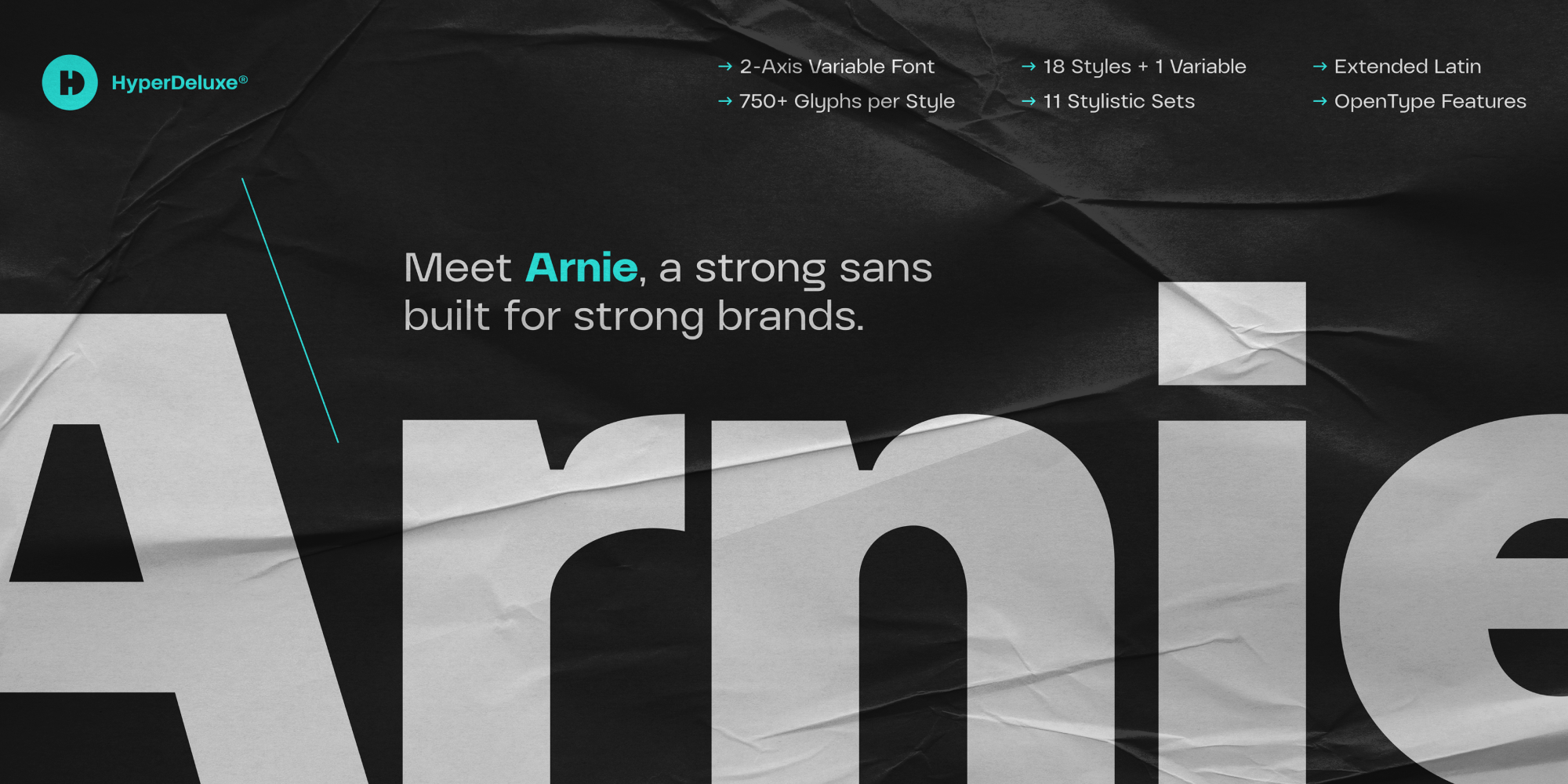
HD Arnie Font is perfect for action movie posters, fitness equipment branding, bodybuilding gym signage, sports supplement packaging, adventure sports marketing, motorcycle dealership materials, military-themed designs, powerful automotive advertising, masculine lifestyle brands, and high-energy entertainment promotions.
What makes HD Arnie Font exciting is its commanding strength and uncompromising power that embodies the spirit of determination, physical prowess, and unstoppable achievement. This powerful typeface captures the essence of legendary strength with its bold character construction and muscular proportions that evoke the confidence of champions and the determination of those who refuse to accept limitations. The font's authoritative character creates an immediate impression of strength and reliability that resonates with ambitious audiences.
HD Arnie Font family includes regular weight with powerfully built character designs featuring robust construction and athletic proportions. The typeface maintains excellent impact and readability while showcasing its distinctive strength-focused personality through boldly crafted letterforms that seem forged from pure determination and unwavering willpower.
Brand managers consistently choose HD Arnie Font Free Download for projects requiring authentic strength appeal and motivational power. This remarkable typeface brings the spirit of champions to brand communications, combining physical prowess with mental toughness to create inspiring experiences that motivate action. The powerfully designed characters ensure maximum visual impact across all applications, making it essential for fitness brands, sports companies, and any organization seeking to communicate the transformative power of dedication, strength, and the relentless pursuit of excellence that turns ordinary individuals into extraordinary achievers.